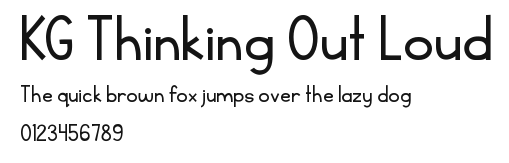
KG Thinking Out Loud Preview
• Font Name: KG Thinking Out Loud
• Full Font Name: KG Thinking Out Loud
• Designer: Kimberly Geswein
About KG Thinking Out Loud.ttf
KG Thinking Out Loud.ttf is a modern, elegant sans-serif font designed for ultimate readability and visual harmony. Perfect for branding, headlines, web design, and print materials.